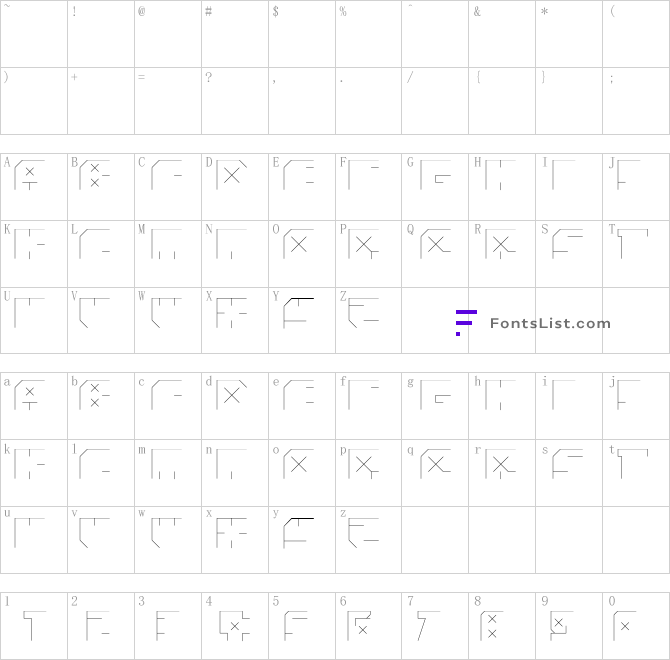
- Font Name:andrefistshdw
andrefistshdw.ttf is a very beautiful artistic font, andrefistshdw.ttf is widely used in the design and printing of various books and pictures,andrefistshdw.ttf has a strong visual impact,andrefistshdw.ttf is a commonly used font in newspapers, magazines and books, and is used in posters, e-commerce Poster design, store design, logo design, font design and other fields.andrefistshdw.